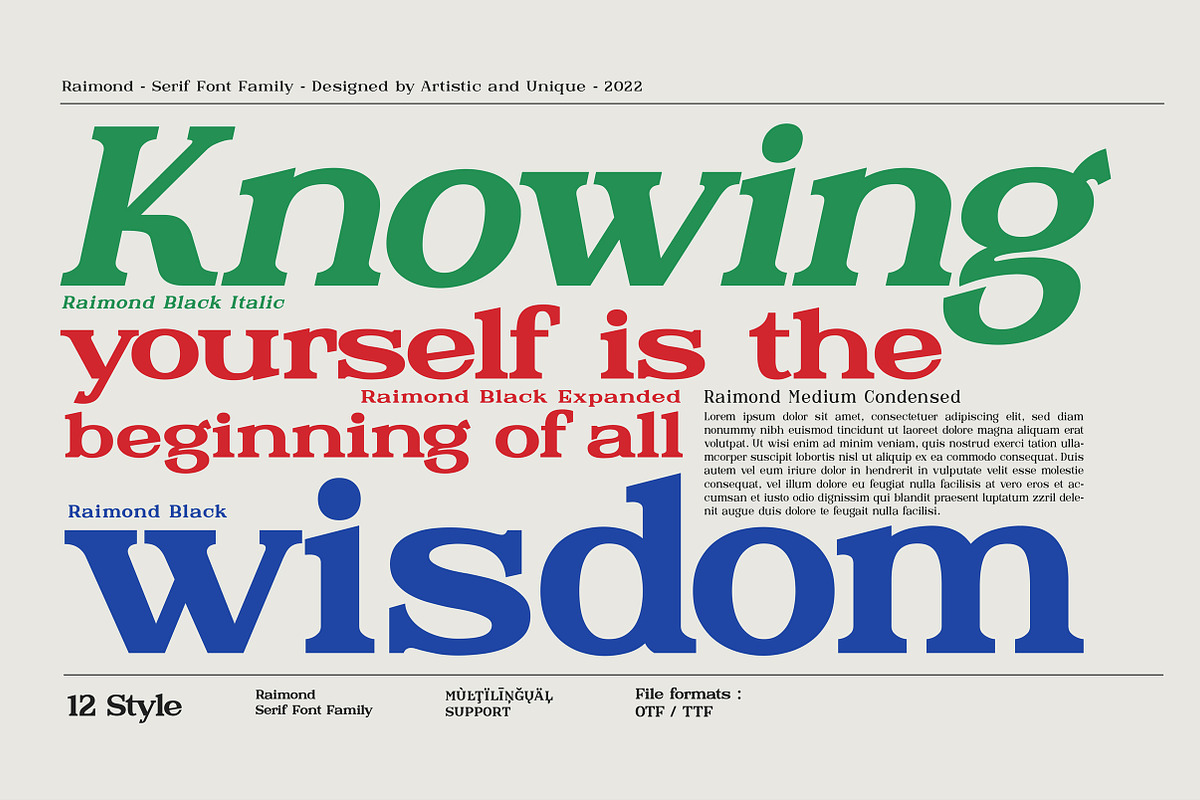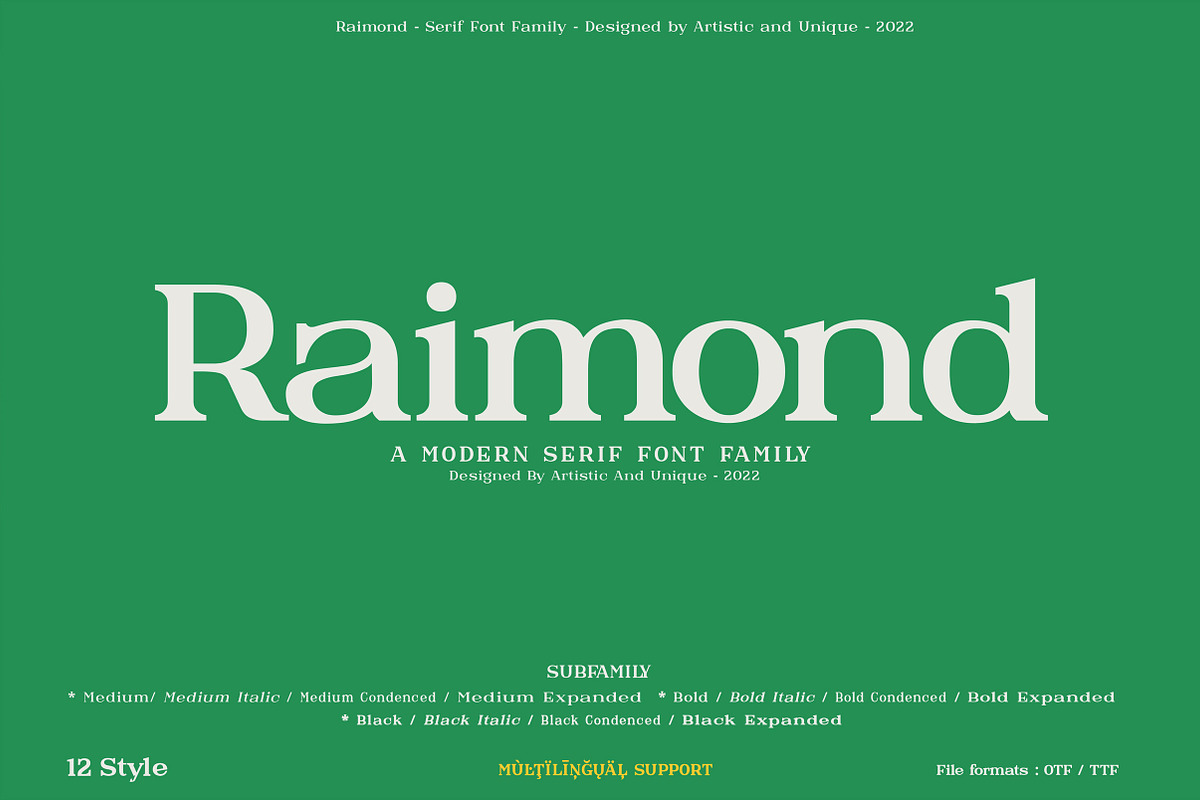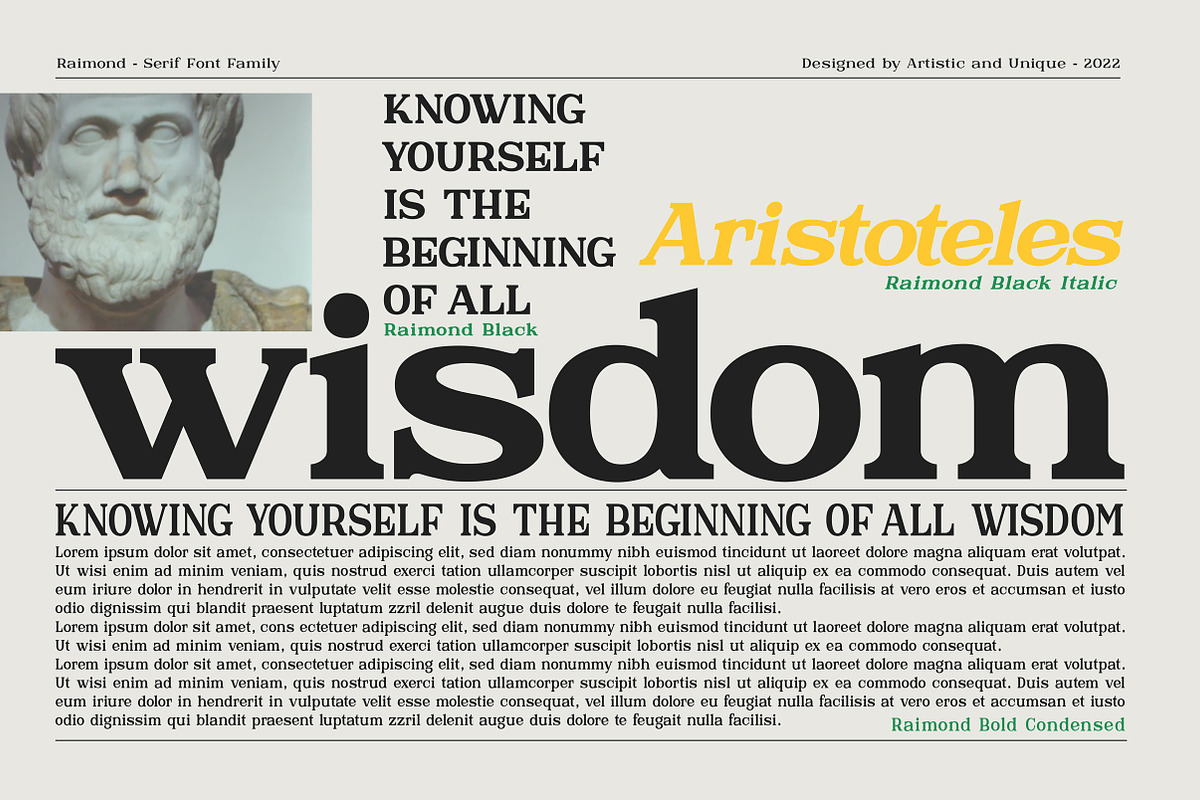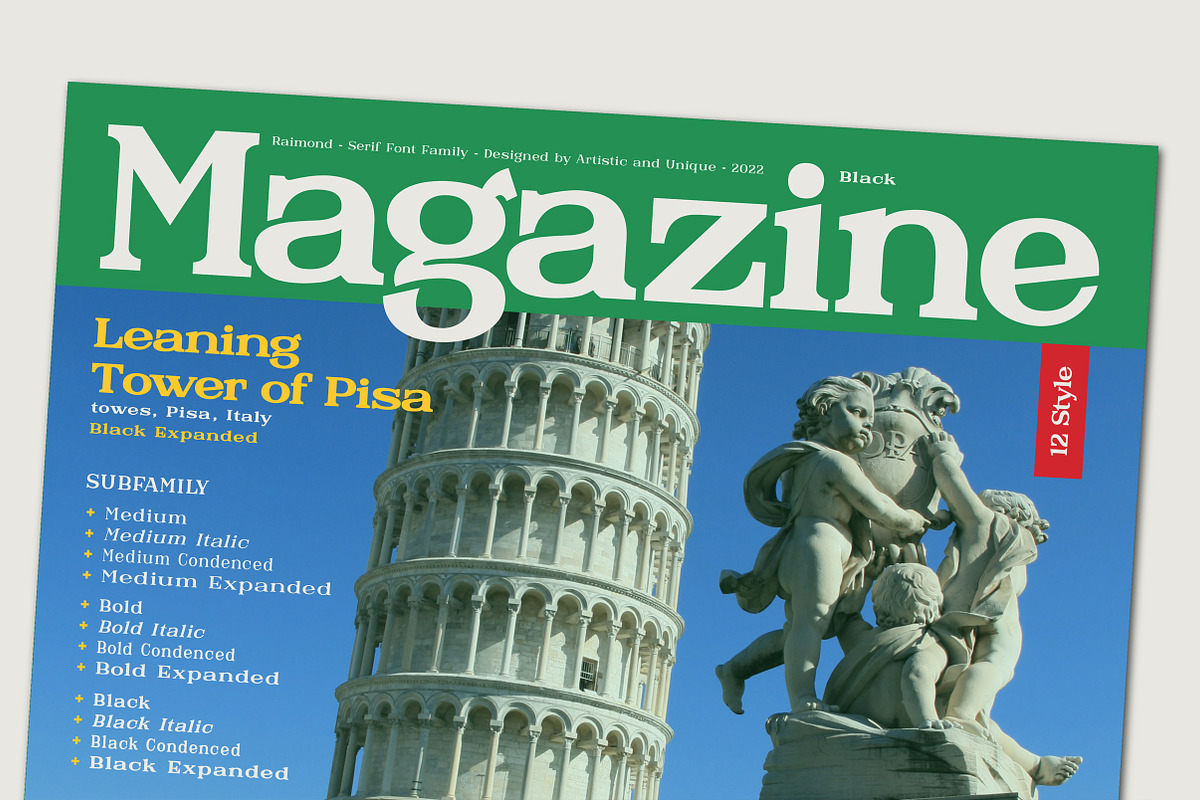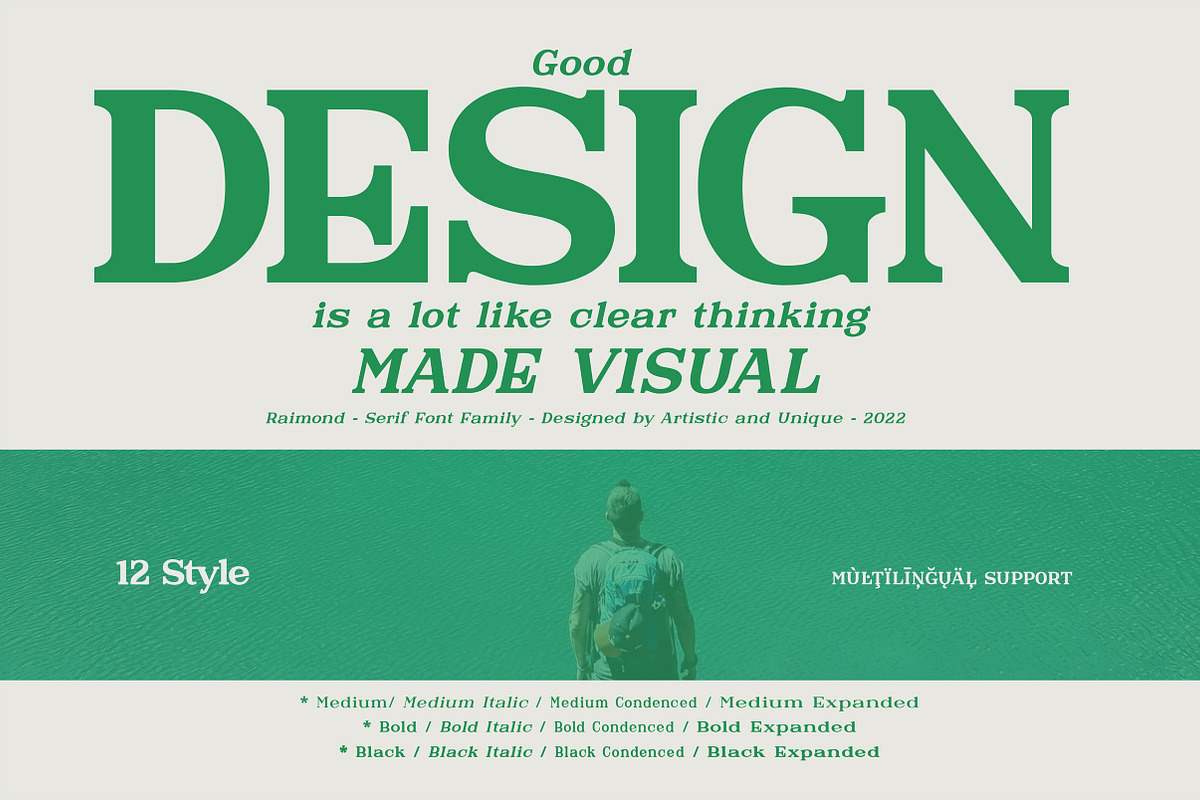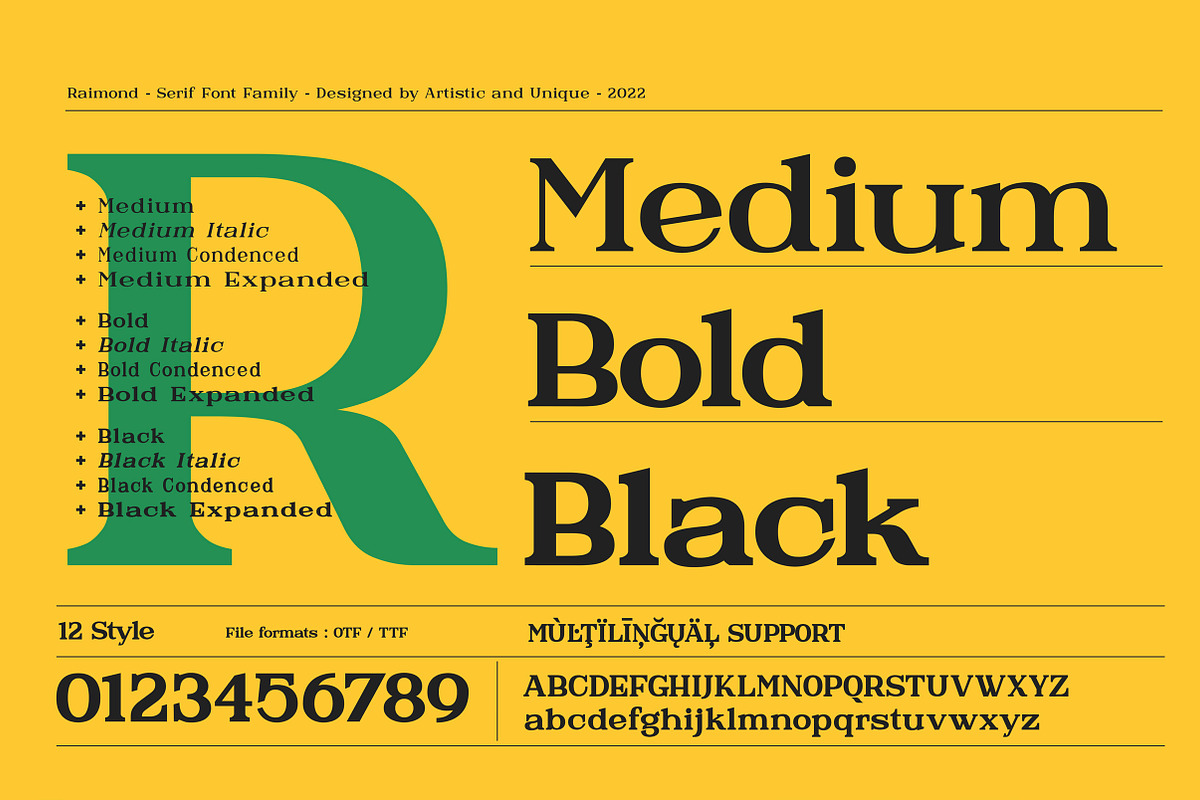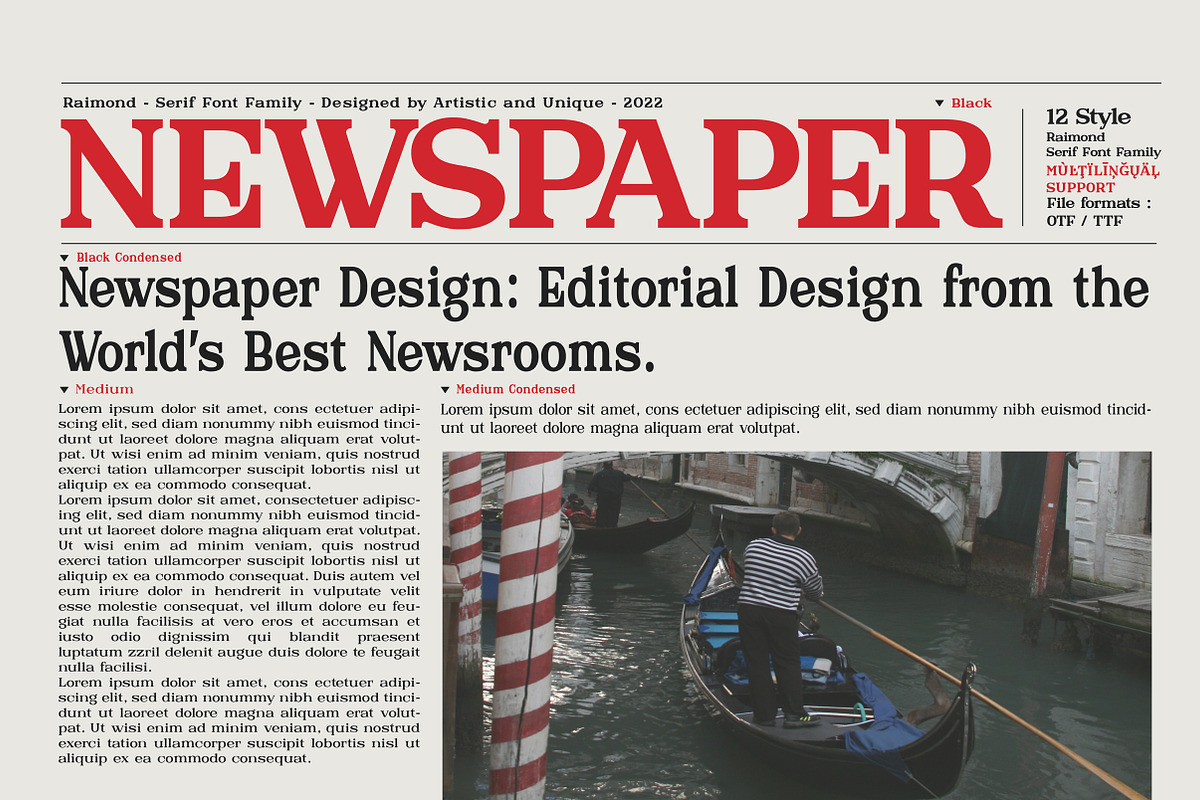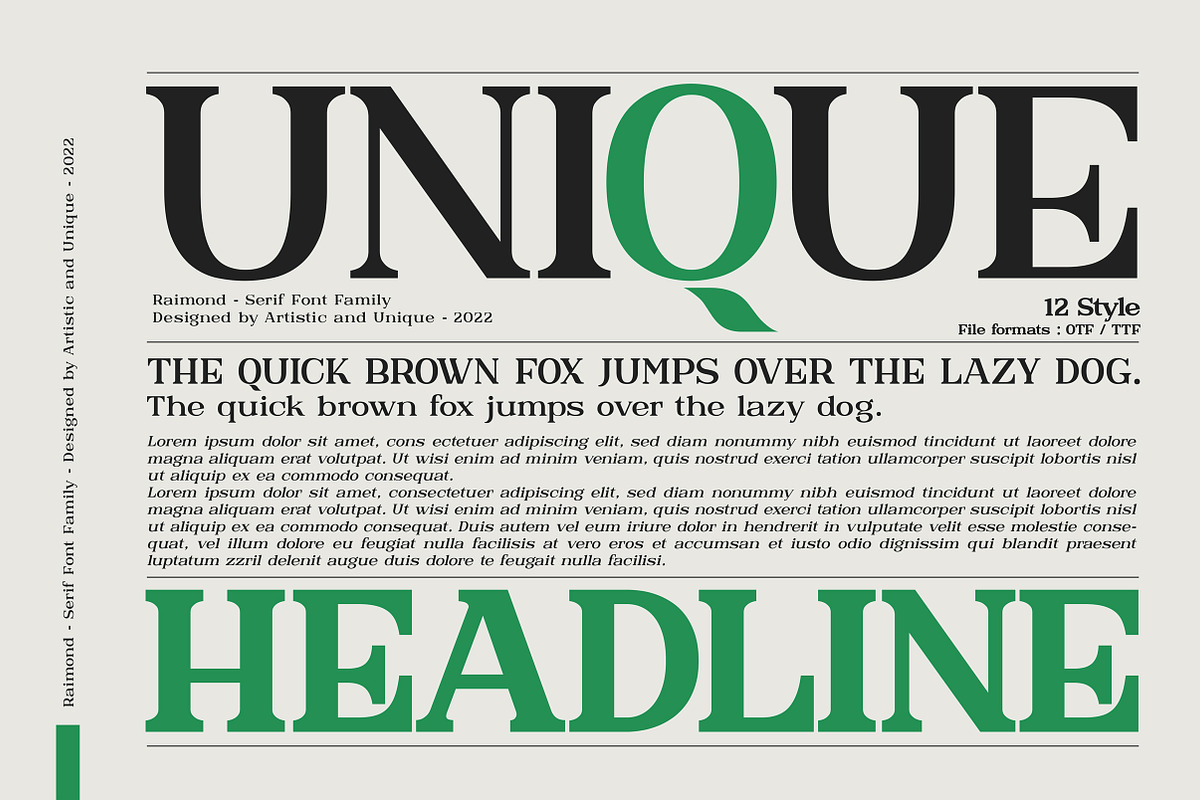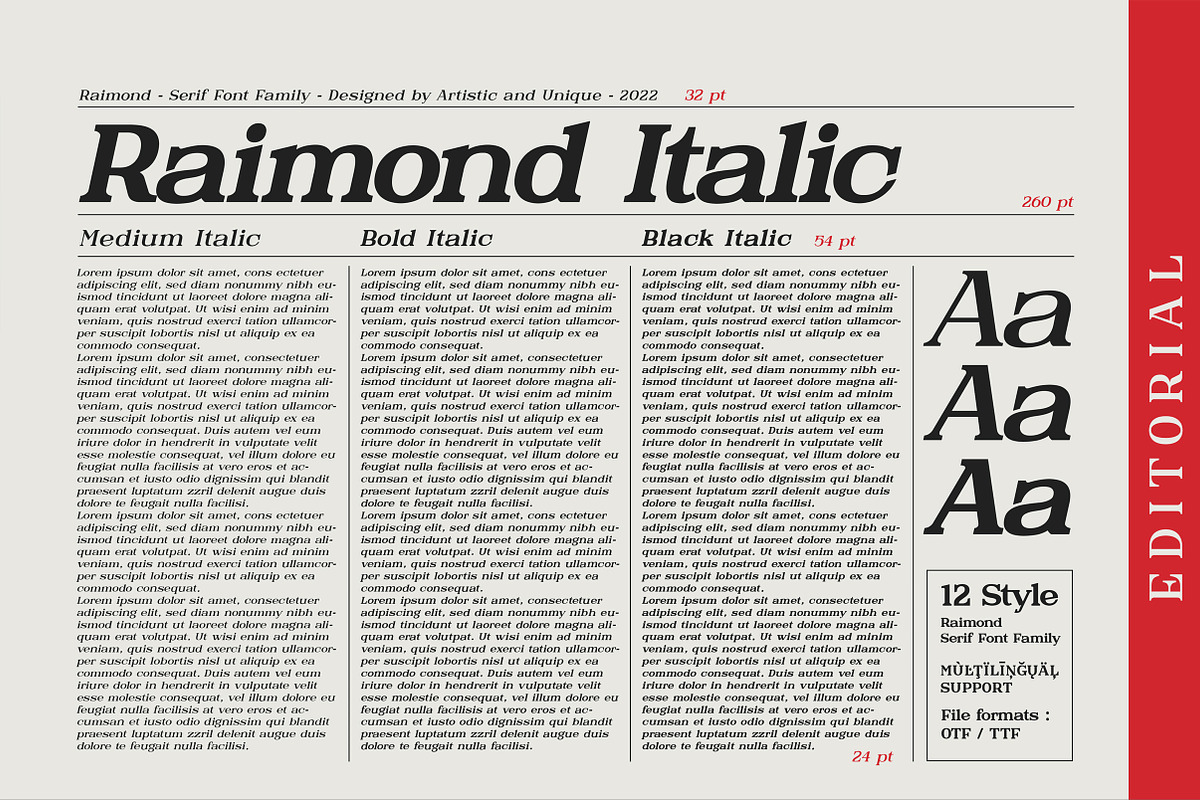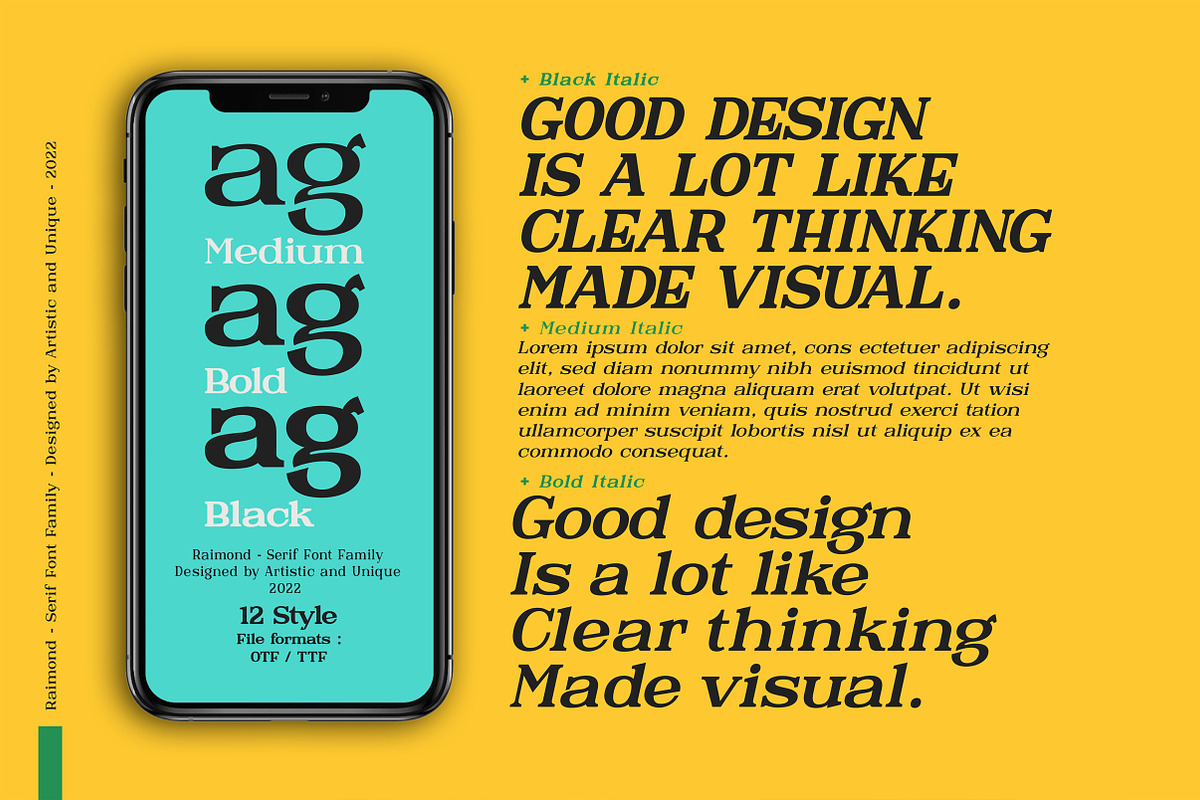
Raimond - Serif font family
It has a timeless structure where you can create your modern-elegant or classic design alternatives. This font family consists of 12 different styles and multilingual supports.
If you are looking for a new serif font with different character designs, Raimond can meet your needs. You can create creative and stylish designs with uppercase and lowercase letter combinations in the title and text.
Ideal for books and magazines, editorials, headlines, websites, logos, branding, advertising and more.
With this font you can create your unique designs.